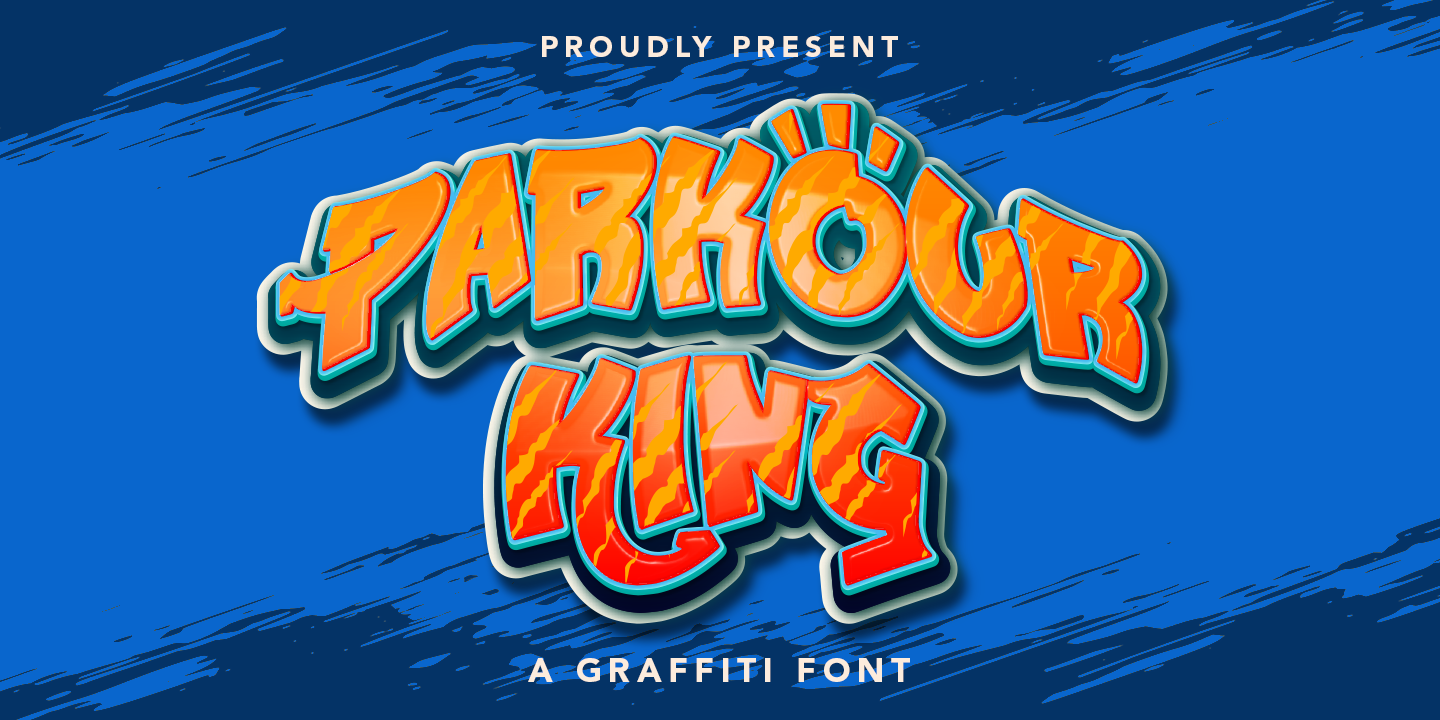
Parkour King Font is ideal for extreme sports branding, urban fitness training centers, freerunning competition promotions, action sports apparel, youth athletic programs, urban adventure tourism, extreme sports documentaries, parkour gym signage, action-packed video game interfaces, adrenaline sports marketing, urban obstacle course events, and dynamic youth culture campaigns.
This font is exciting because it captures the explosive athleticism and fearless urban creativity that defines parkour mastery, featuring dynamic letterforms that leap and flow with the same fluid precision and powerful grace that allows parkour kings to transform concrete jungles into their personal playgrounds through death-defying vaults, lightning-fast wall runs, and gravity-defying precision jumps. The energetic character design embodies both the raw physical power and mental discipline required to master the art of movement, creating typography that seems to vault over conventional design limitations with the same effortless confidence that true parkour athletes demonstrate when conquering seemingly impossible urban obstacles.
The Parkour King Font family includes regular and bold weights with complete character sets featuring athletic-inspired numerals, dynamic punctuation marks, and decorative elements reminiscent of urban architecture, movement flow lines, and parkour equipment. Advanced versions may offer additional stylistic variants with enhanced motion effects, alternate characters that create flowing movement connections, and urban ornaments that celebrate the street culture and athletic excellence of parkour mastery.
Whether you're developing extreme sports brand identities, creating urban fitness marketing materials, or designing action-packed entertainment content, Parkour King Font Free Download provides the athletic dominance and urban agility your project needs to inspire audiences and capture the spirit of fearless movement innovation. This typeface transforms ordinary text into powerful declarations that celebrate the courage, creativity, and physical excellence that defines parkour culture and extreme urban athletics. The font's dynamic character makes it perfect for brands targeting young, active audiences who value freedom, creativity, and physical achievement. Extreme sports marketers and urban culture enthusiasts will love how this font brings authentic parkour energy to their work with its genuinely athletic and supremely confident character that rules the urban landscape.